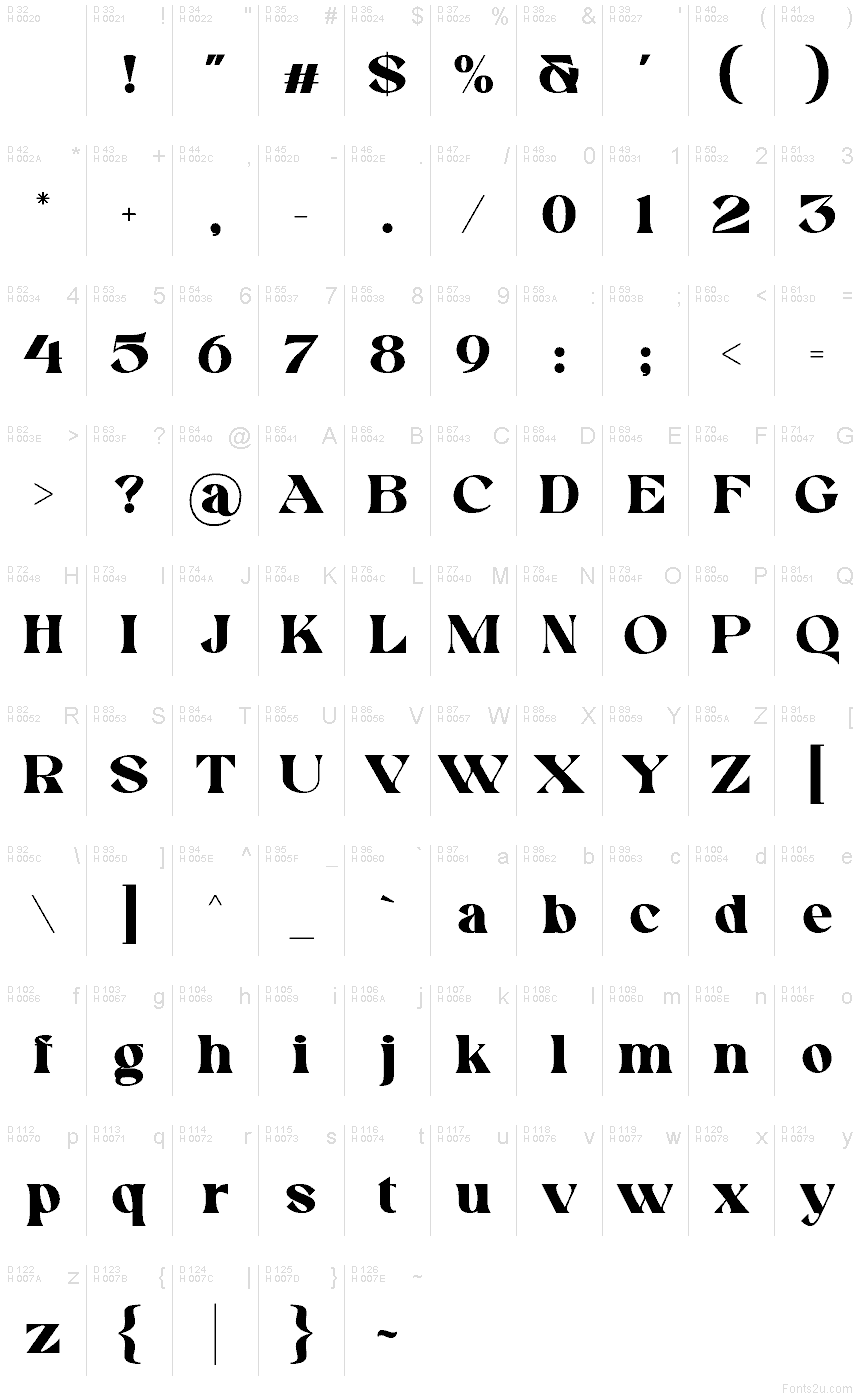
SwomunSerif-Regular
Swomun Serif font by Tebaltipis Studio is a bold and expanded serif typeface that immediately captures attention. The font boasts classic elements with an avant-garde spirit, giving it a hybrid look that’s suitable for playful design projects. Its unusual letter structure and pleasant readability add to the overall harmonious flow of the text.
A free serif font, Swomun is especially suitable for headings, titles, logos, packaging designs, book covers, website banners and pages. It can further complement magazines and newspapers as well as customer products like cosmetics or fashion items. Use it on wine bottle labels or antique-inspired posters. Swomun will beautify any typography-related project!